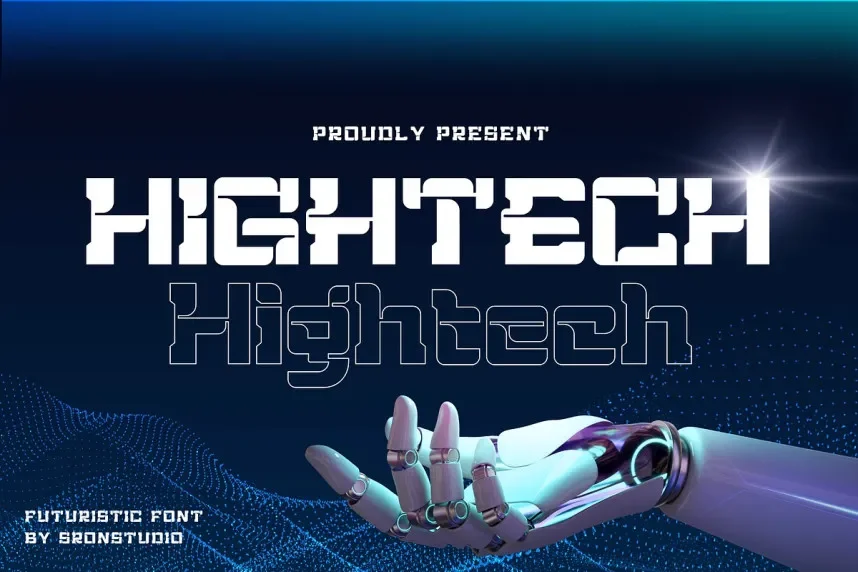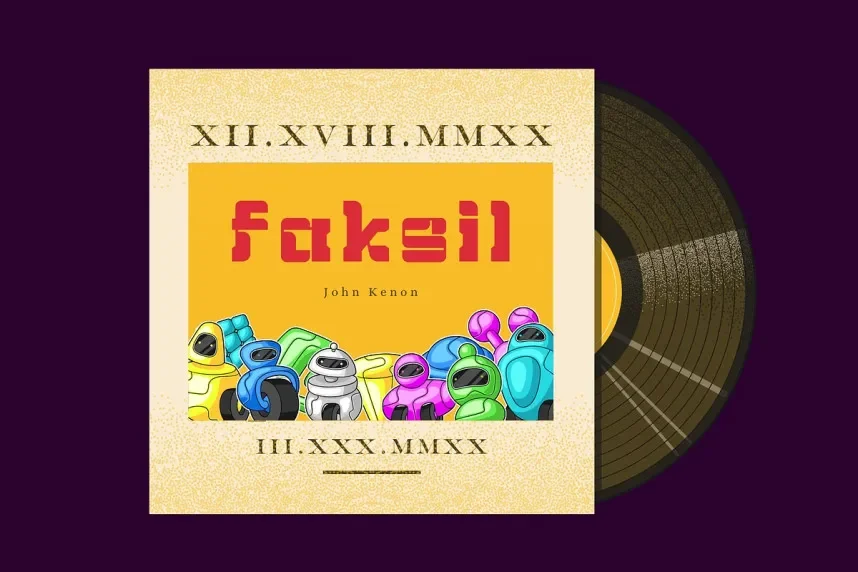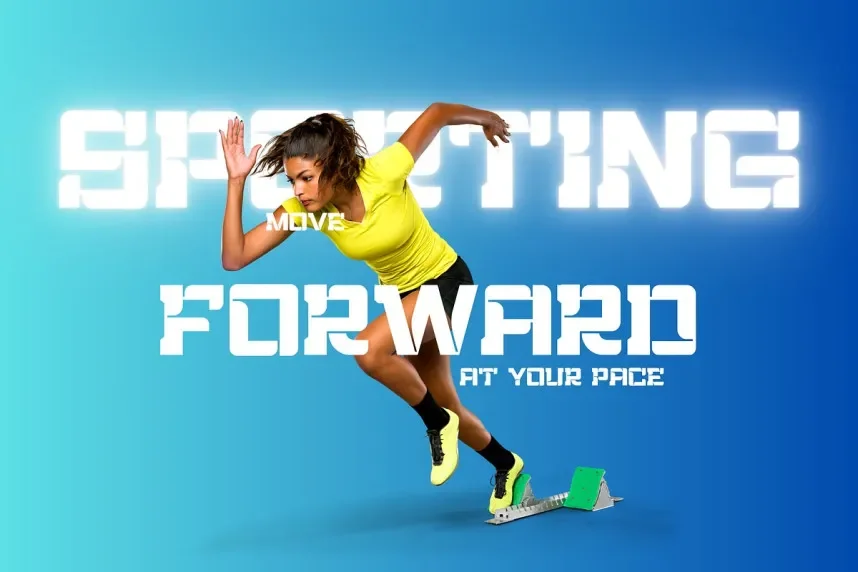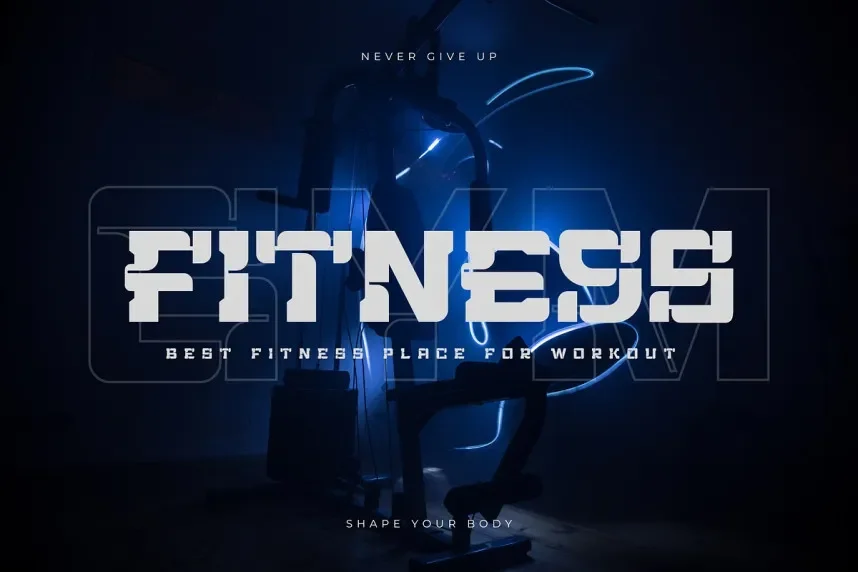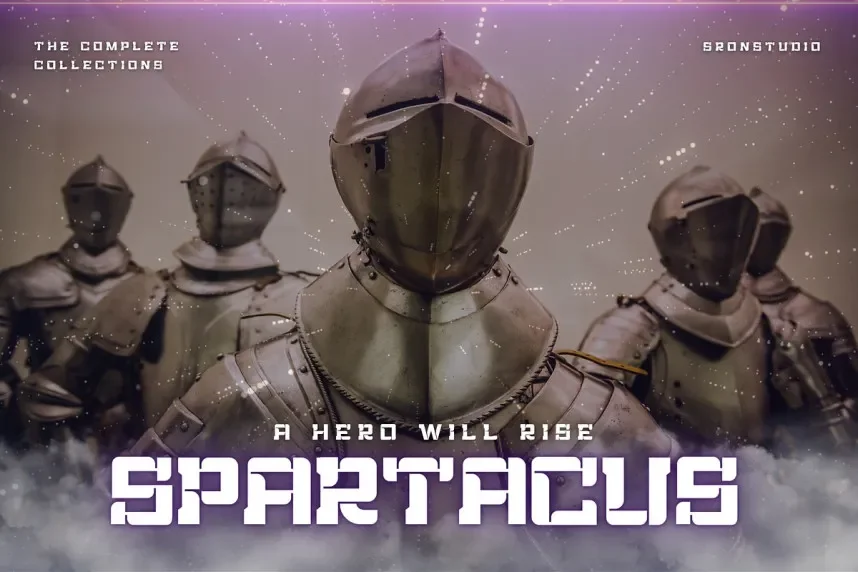
Hightech Font is a sans-serif typeface developed for digital layouts that require a modern, technical appearance. Designers often face readability challenges when creating technology-focused branding, UI elements, and headings that must look structured across screens.
Hightech Font uses geometric letterforms, straight lines, and minimal curves. Stroke widths remain consistent, which improves clarity at medium and large sizes. The font emphasizes clean alignment and precise spacing, making it suitable for interface text, headlines, and tech-related branding. It usually includes uppercase and lowercase characters, numerals, and punctuation.